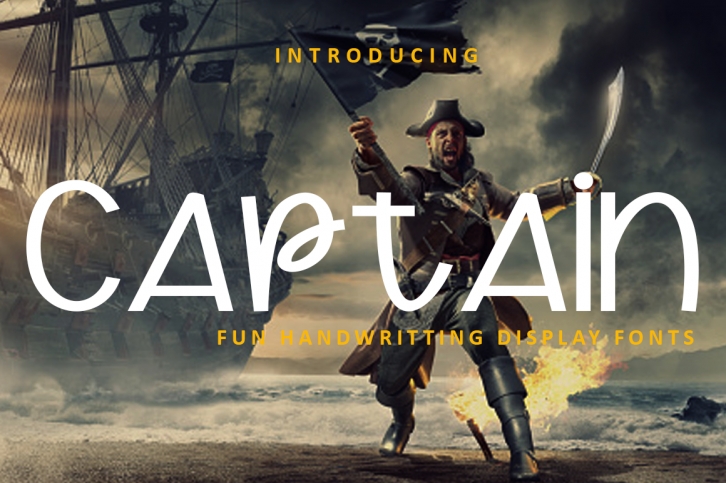
Captain is a cool, neat and friendly display font. Whatever the topic, this font will be a wonderful asset to your font library, as it has the potential to enhance any creation.